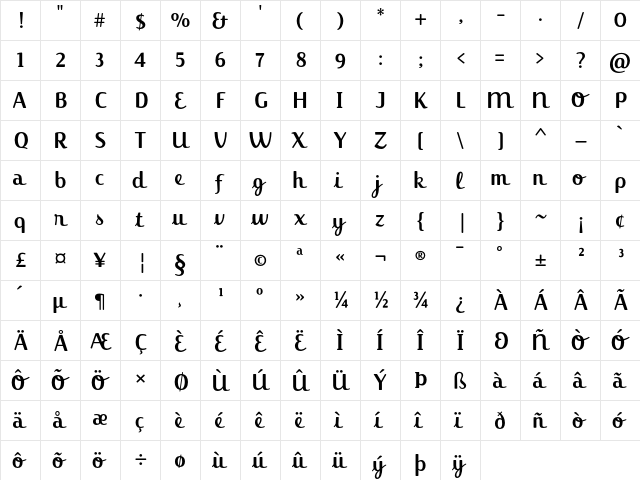
Jackie-Alternate Regular
Design Context for Jackie-Alternate Typeface
Jackie-Alternate is a composed and adaptable typeface that performs quietly and consistently across a wide range of design contexts.